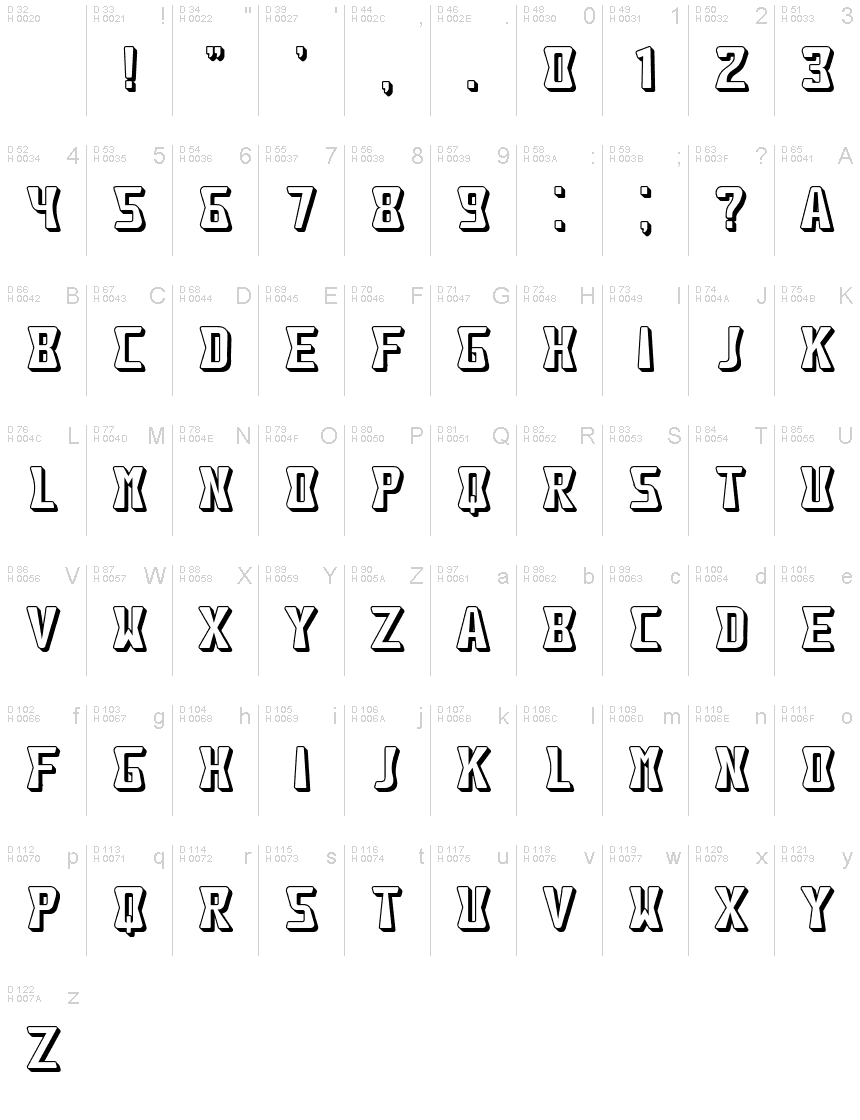
Hockey Regular
Hockey is a bold, 3D retro font designed by Vladimir Nikolic. It's perfect for modern projects that need an eye-catching, yet sophisticated look. Great for logos, titles and headlines.